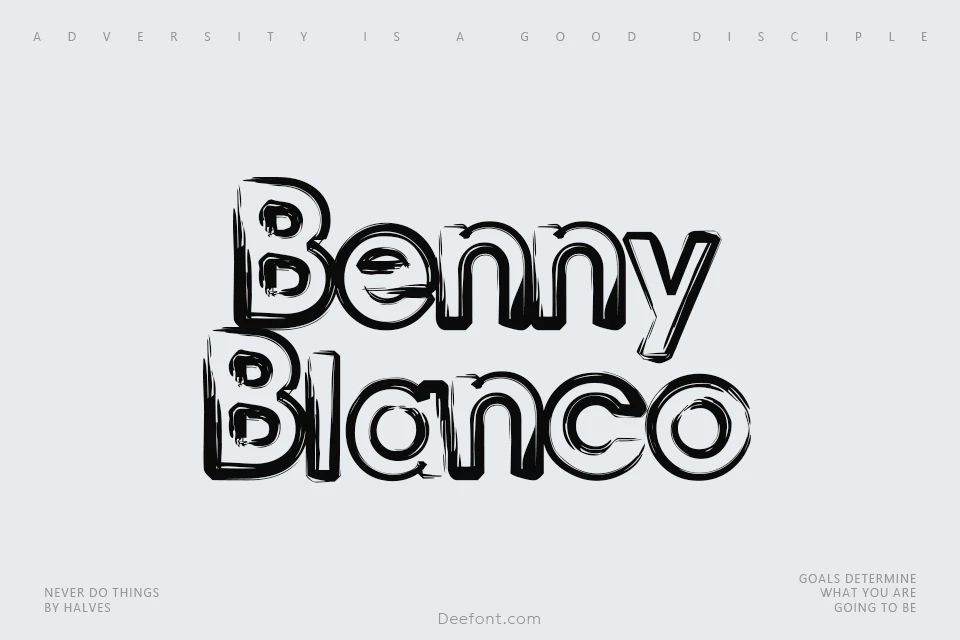
Benny Blanco Font
Benny Blanco Font is a distinctive and playful typeface designed by pOPdOG fONTS. Characterized by its bold, hand-drawn appearance, the font features chunky strokes and an eroded texture that gives it a unique, artistic flair. Its slightly uneven lines evoke a sense of creativity and spontaneity, making it ideal for various design projects, including posters, logos, and social media graphics. The Benny Blanco Font supports multiple languages and is available for both personal and commercial use, allowing designers to incorporate its vibrant style into their work effortlessly. This font stands out for its dynamic and eye-catching aesthetic, perfect for capturing attention in any visual context.